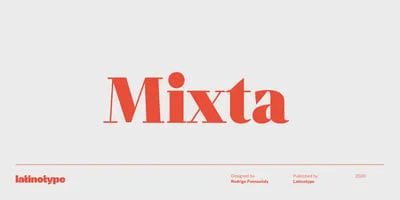
Mixta Font
Mixta Font is perfect for multicultural organizations, fusion restaurants, international music festivals, global art galleries, diverse community centers, cosmopolitan lifestyle brands, world music venues, and cross-cultural celebration materials. This versatile typeface brings cultural fusion and international harmony to any design project celebrating diversity, multiculturalism, and the beautiful blend of different traditions and influences.
What makes Mixta Font exciting is its brilliant fusion of multiple typographic influences combined with universal appeal that perfectly captures the essence of cultural mixing and the harmonious blending of diverse traditions into something beautifully unified. The adaptable letterforms feature multicultural proportions and fusion styling that create an unmistakably inclusive appearance. Each character celebrates diversity, making it ideal for brands that represent cultural fusion, international cooperation, and the beautiful harmony that emerges when different cultures come together.
The Mixta Font family typically includes multiple weights from light to bold with complete uppercase and lowercase letters, numbers, punctuation marks, and international symbols. Many versions feature additional multicultural decorative elements, fusion motifs, and global symbols that enhance the diverse aesthetic and provide creative flexibility for international and multicultural design applications.
Whether you're developing multicultural brands or creating international fusion materials, Mixta Font offers unlimited potential for diversity-focused projects. This inclusive typography choice transforms ordinary text into multicultural experiences that resonate with audiences appreciating cultural diversity and international harmony. The font's fusion construction ensures exceptional appeal across global applications while maintaining its distinctive mixed character that makes every design project feel like a celebration of unity in diversity where different cultures blend together in perfect multicultural harmony creating something beautiful and uniquely unified.